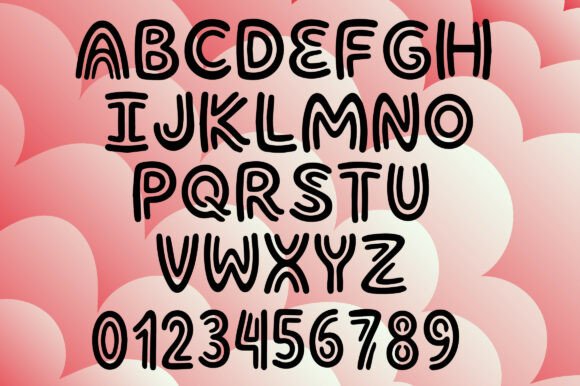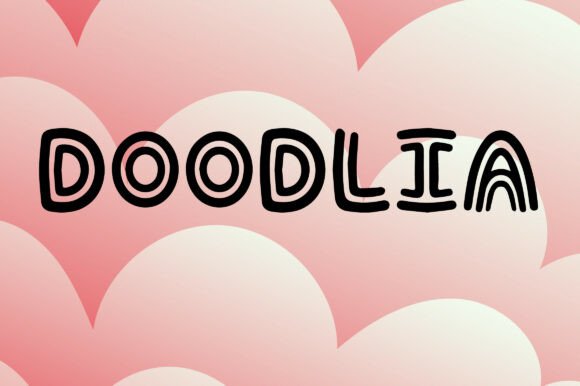
Doodlia Font: The Perfect Playful Companion for Your Creative Projects
Are you on the hunt for a font that injects a dose of playfulness and whimsy into your designs? Look no further than Doodlia, a charming hand-drawn doodle font that’s sure to delight. With its rounded, bold, and slightly uneven letterforms, Doodlia brings a fun, friendly, and casual vibe to any project it’s a part of. Whether you’re working on designs for kids, crafting posters, building a brand, or brainstorming creative ideas, Doodlia is the perfect companion to help your work stand out.
The Characteristics of Doodlia Font
Doodlia’s unique outline style gives it a distinctive look that’s both eye-catching and endearing. Its key features include:
- Playful Hand-Drawn Style: Each letterform in Doodlia is carefully hand-drawn, giving the font a personal and bespoke feel.
- Rounded and Bold: The rounded edges and bold strokes of Doodlia’s letters make it highly legible and give it a sturdy appearance.
- Slightly Uneven: The slight unevenness in the letterforms adds to the font’s hand-drawn charm, making it feel more organic and less machine-made.
- Whimsical Outline Style: The outline style of Doodlia adds a layer of whimsy, making it perfect for projects that require a touch of playfulness.
- Includes Uppercase A–Z and Numbers 0–9: Doodlia comes complete with uppercase letters from A to Z and numbers from 0 to 9, providing everything you need for a variety of design projects.
Perfect for Kids’ Designs, Crafts, Posters, Branding, and More
Doodlia’s versatile nature makes it suitable for a wide range of applications. Here are some areas where Doodlia truly shines:
- Kids’ Designs: The playful and fun nature of Doodlia makes it an excellent choice for designs aimed at children. Whether it’s for educational materials, activity sheets, or kids’ event branding, Doodlia is sure to engage its young audience.
- Crafts: For crafters and DIY enthusiasts, Doodlia offers a font that can be used in various craft projects, from handmade cards to DIY signage. Its friendly appearance makes any craft project more inviting.
- Posters: When it comes to creating posters for events, promotions, or informational purposes, Doodlia can add a touch of warmth and approachability. Its bold letterforms ensure that your message stands out.
- Branding: For brands looking to convey a friendly and approachable image, Doodlia can be a great addition to their branding materials. It’s particularly effective for businesses targeting a younger demographic or those in creative industries.
- Cheerful Creative Projects: Any project that could benefit from a cheerful and upbeat vibe is a good candidate for Doodlia. From greeting cards to social media graphics, Doodlia can help ensure your project feels welcoming and engaging.
Tips for Using Doodlia Font Effectively
To make the most of Doodlia, consider the following tips:
- Pair with Complementary Fonts: While Doodlia is great on its own, pairing it with a more straightforward font can create visual interest. Choose fonts that complement Doodlia’s playful style without clashing with it.
- Experiment with Colors: Doodlia’s friendly vibe lends itself well to bright and cheerful colors. Don’t be afraid to experiment with different color palettes to find the one that best suits your project.
- Use for Headers and Titles: Due to its bold nature, Doodlia works exceptionally well for headers and titles. It can help draw attention and set the tone for the rest of your design.
- Consider Your Audience: While Doodlia is playful and fun, ensure it’s appropriate for your target audience. Its informal style may not be suitable for all professional or corporate projects.
Doodlia font is a delightful addition to any designer’s toolkit, especially those who work on projects that require a playful and friendly touch. Its unique hand-drawn style, combined with its bold and whimsical outline, makes it perfect for a variety of applications, from kids’ designs and crafts to posters and branding. By incorporating Doodlia into your projects, you can add a touch of whimsy and approachability that engages your audience and sets your work apart.
So, if you’re looking for a font that embodies fun, playfulness, and a bit of a personal touch, Doodlia is definitely worth considering. Its ease of use, paired with its charming appearance, makes it an excellent choice for designers and crafters looking to add a little extra something to their creations.